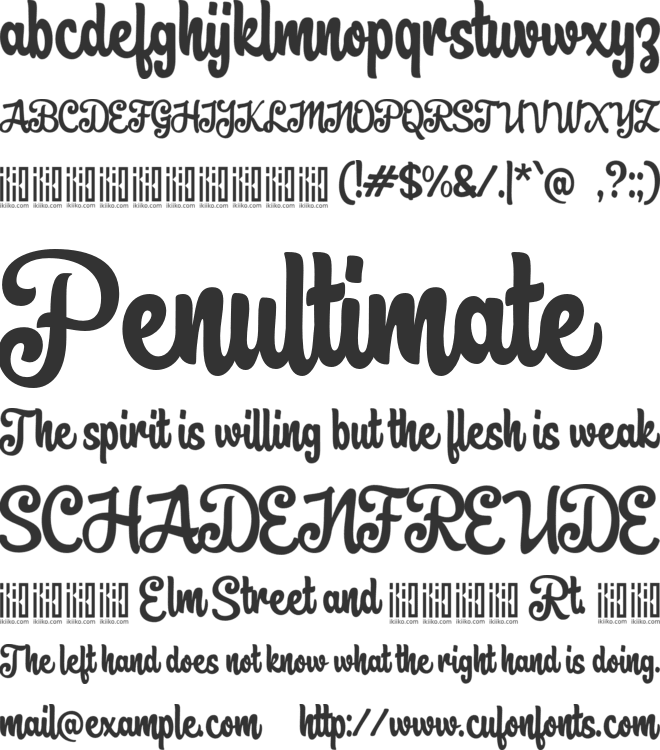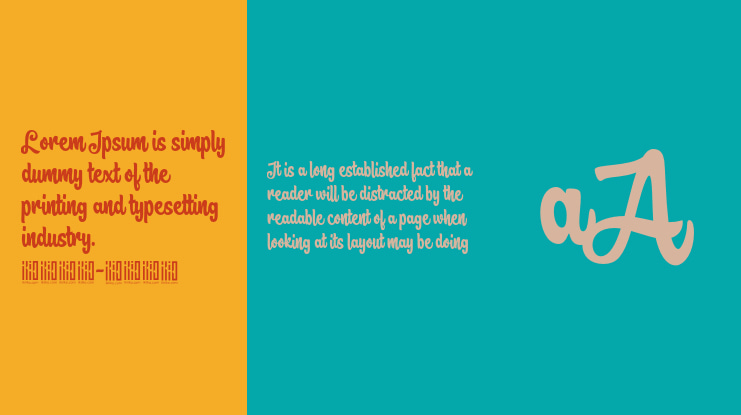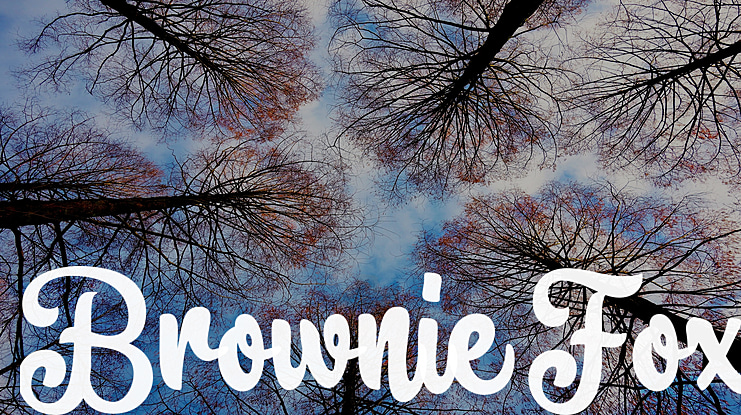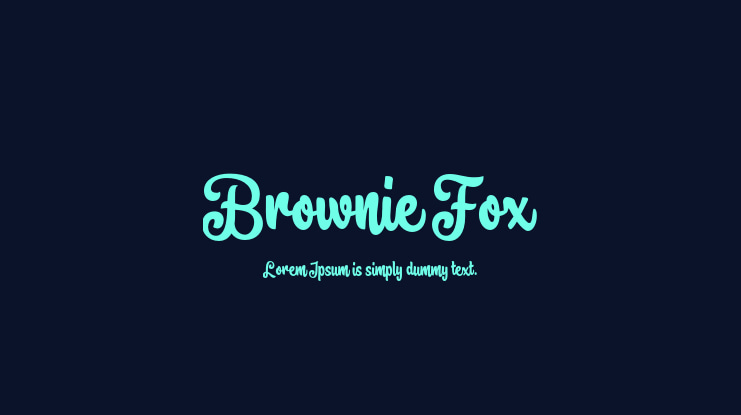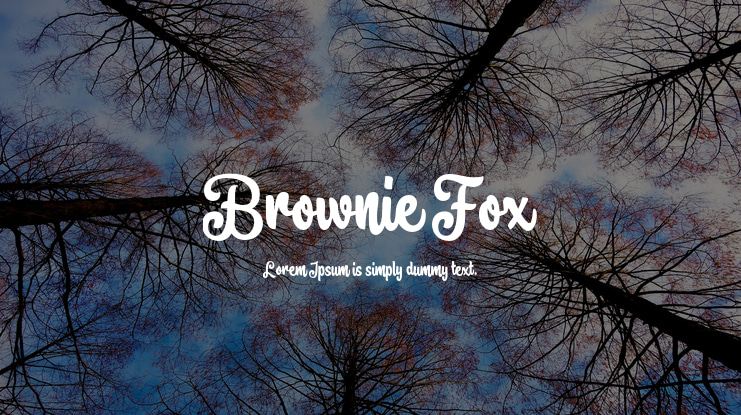
Brownie Fox Font
Introducing Brownie Fox - Fairytale Typeface, created by ikiiko.
A vintage & classy decorative type that reminds us of fairy tale books when we were kids. This typeface is perfect for an books cover, illustration for kids, vintage poster, vintage product, packaging design, magazine header, poster, quotes, and so much more..